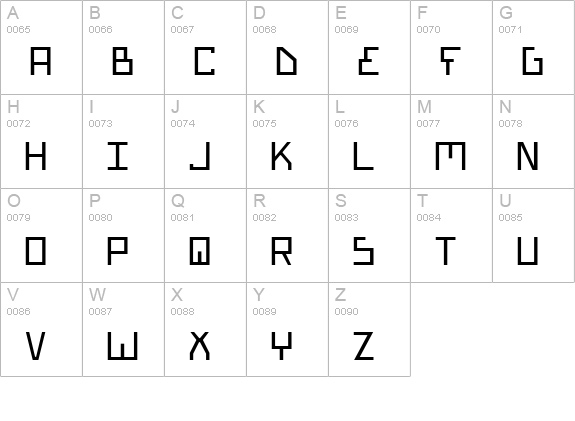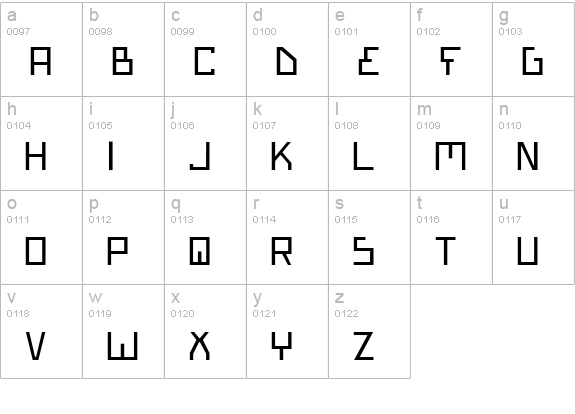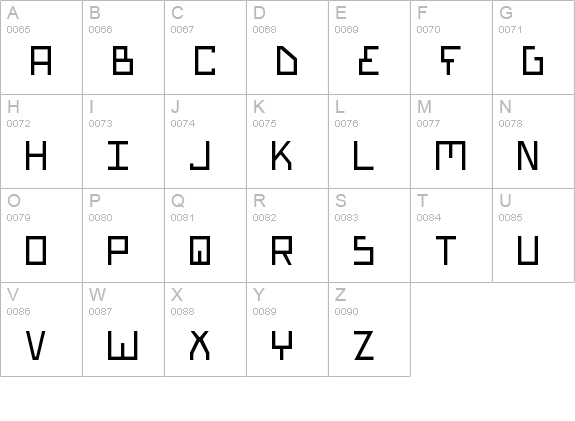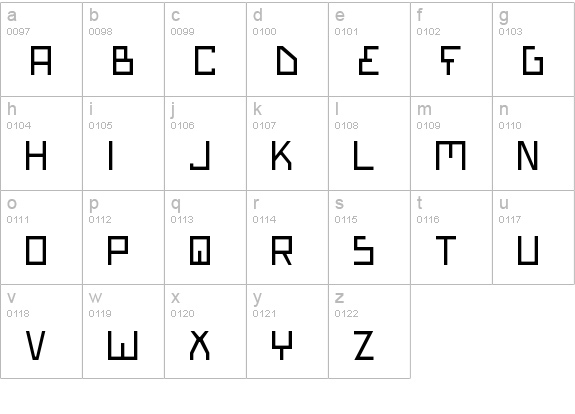
Bionic Type Light is a refined, elegant variant in the Bionic typeface family \xE2\x80\x94 well suited to elegant body text, refined sub-headings, and luxury branding.
Bionic Type Light font is a modern and sleek typeface that combines futuristic elements with a touch of sophistication. Its clean lines and geometric shapes give it a high-tech and cutting-edge look, making it perfect for a wide range of design projects. The Bionic Type Light font offers a sense of innovation and creativity while maintaining readability and elegance. And the best part? Bionic Type Light font is completely free to download at FontsMarket.com. Now you can enhance your designs with this stunning font without breaking the bank. Don't miss out on the opportunity to elevate your projects with the unique style of Bionic Type Light font - get your free download today!